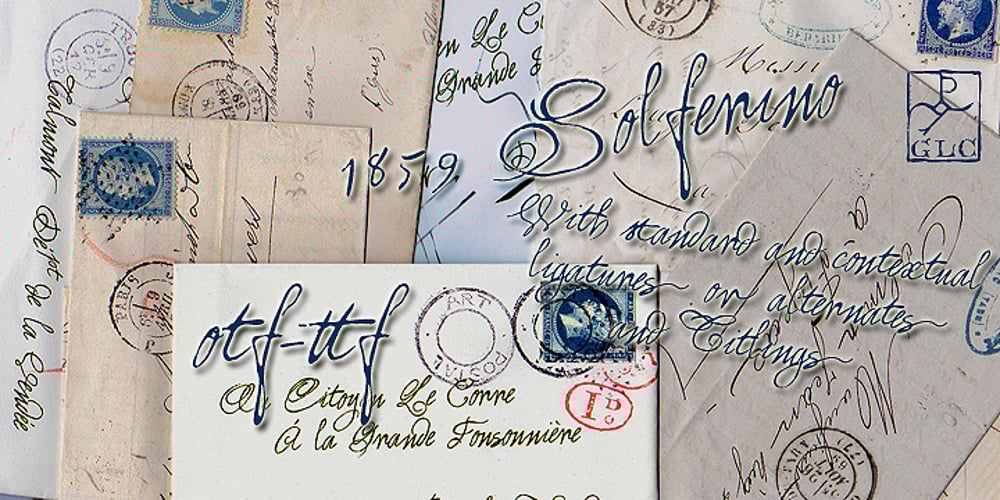
1859 Solferino Font Family was designed by published by GLC. 1859 Solferino contains 2 styles and family package options. This font is a late 19th Century French script overview inspired by numerous French letters, from around years 1850-1860, during the second French empire, under Napoleon the third. Most of them were written with very tiny characters on light sheets of paper, as postage prices were calculated from the letter’s weight. The TTF and OTF versions are enriched with more than 50 ligatures and/or alternate characters. We also offer a choice of two sorts of Capitals. Why “1859 Solferino”? It was the last battle of the Italian independence war, opposing the victorious Franco-Italian army to Austria in June 24, 1859. The Red Cross was inspired directly from the carnage remaining on the battle field.